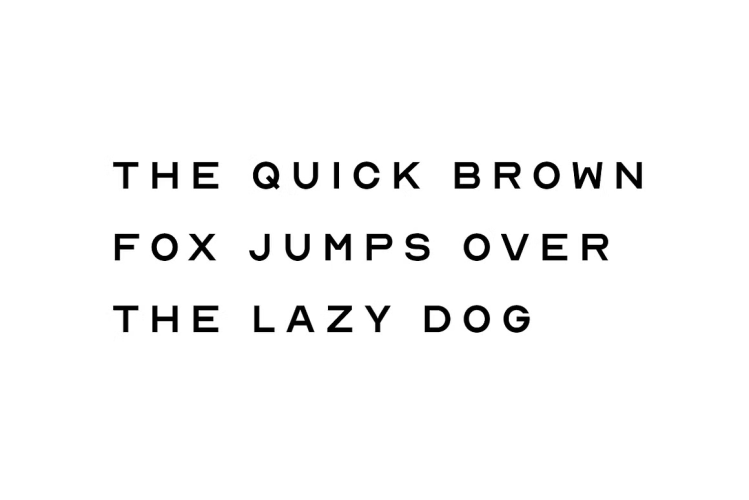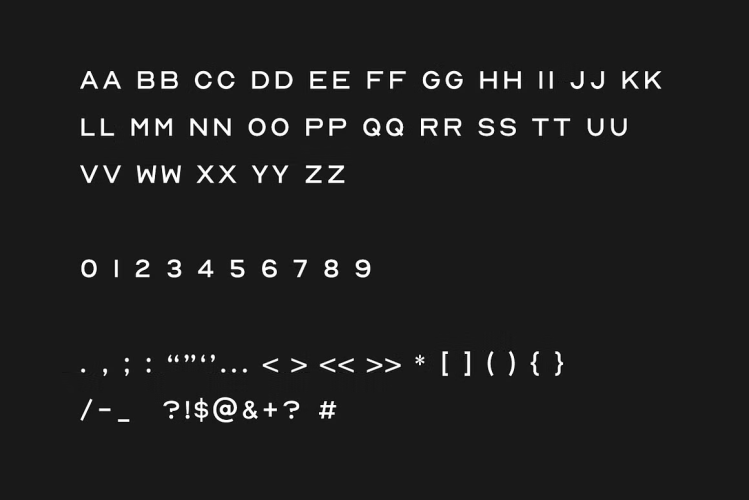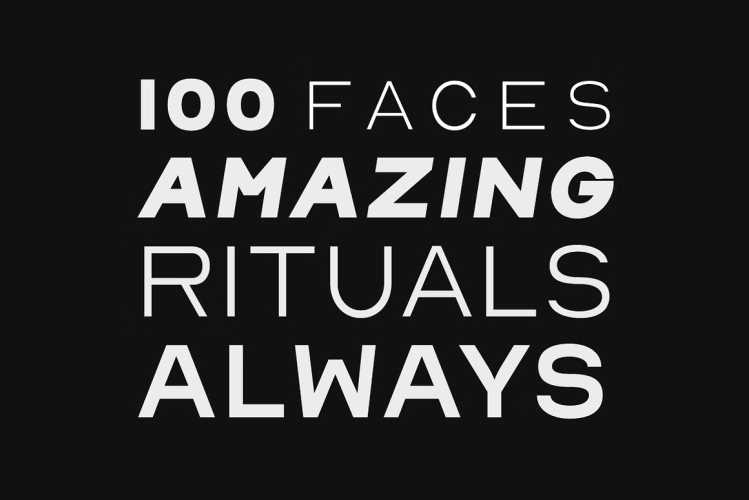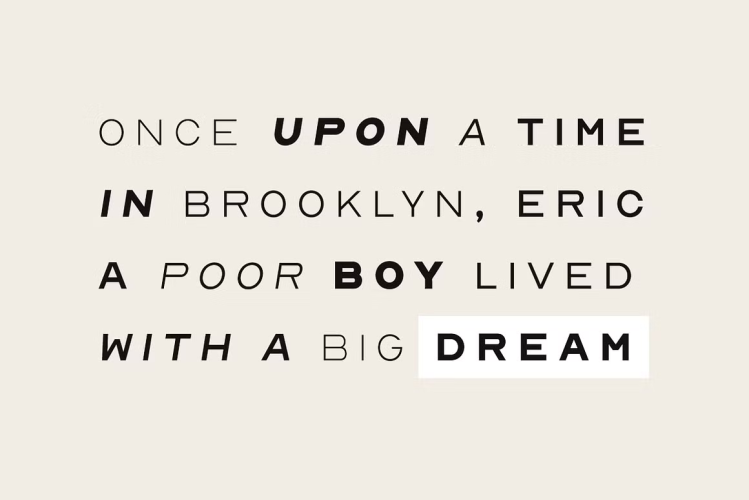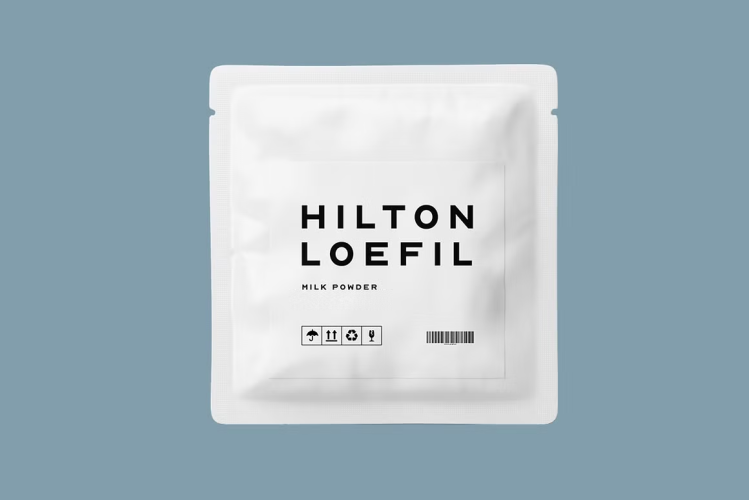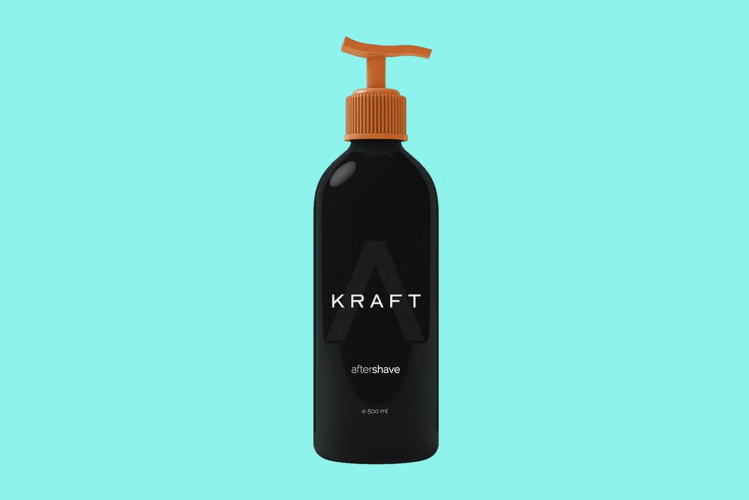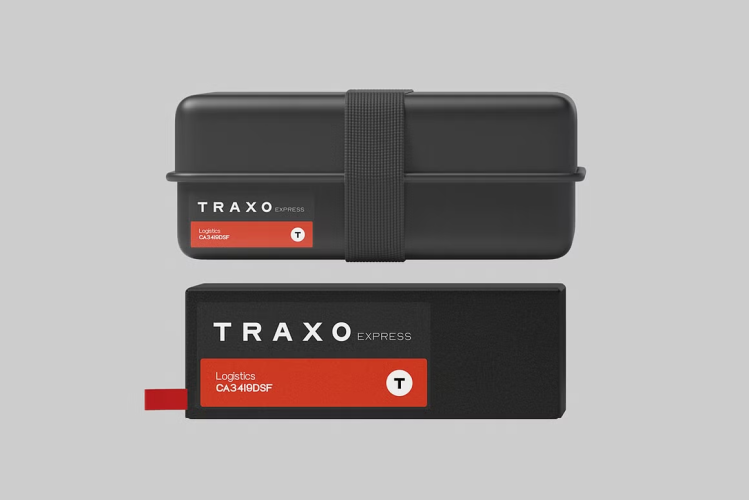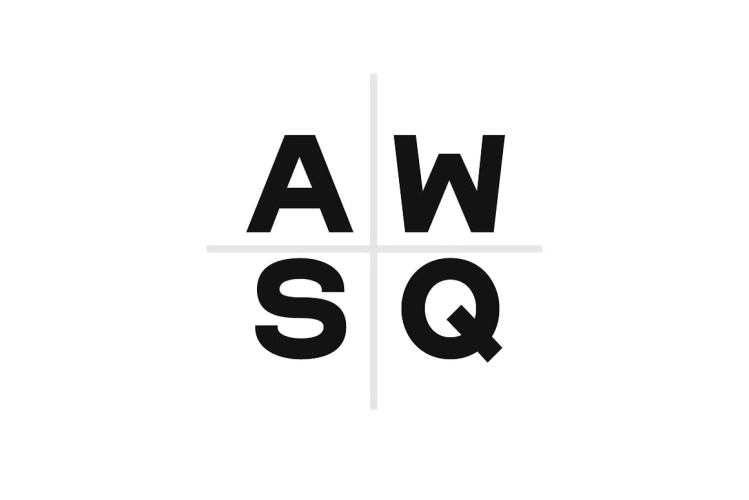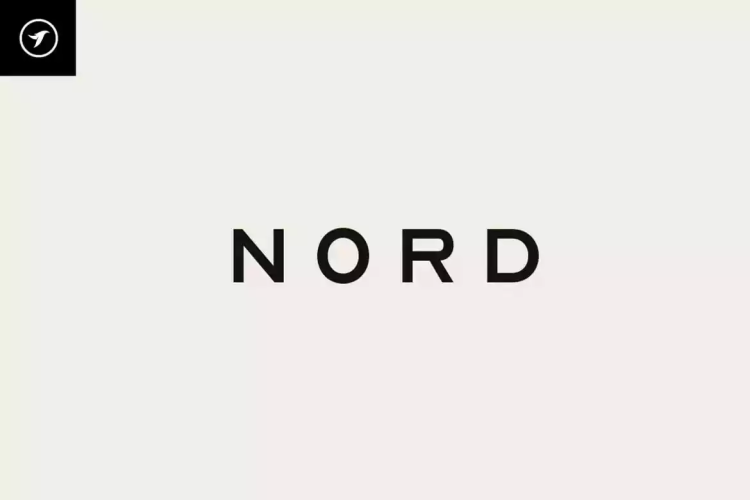
Nord Font
Nord is a minimal, modern Sans Serif and display All-Caps font family that stands out. It is best suited for creating logotypes, branding, headlines, corporate identitie…
Nord is a minimal, modern Sans Serif and display All-Caps font family that stands out. It is best suited for creating logotypes, branding, headlines, corporate identities, marketing materials for web and print, and any type of minimal design. Please see the included demographics to get an idea about the capability of this typeface when used for branding and marketing material design.
Nord font family comes with 14 fonts, including 7 upright weights (THIN / LIGHT / BOOK / REGULAR / MEDIUM / BOLD / BLACK) and Italic versions of all 7 weights. Each weight includes extended language support, including Western European & Central European sets. A total of 275 glyphs are included (updated as version v2.0).
NORD font family includes a collection of 14 fonts in total, with seven upright weights and Italic equivalents of all seven weights as follows:
Handcrafted and designed with powerful OpenType features in mind, each weight includes extended language support with Western European, Central European, and South Eastern European sets. A total of 275 glyphs are available.
Where Nord Font works best
Complete brand systems
With multiple weights, Nord Font can carry a whole identity — logo, headings, body copy and captions — consistently across print and web.
Websites & apps
Families let you set hierarchy with weight instead of switching typefaces, which keeps interfaces fast and coherent.
Print collateral
Brochures, catalogues and business cards benefit from a family that covers display and text sizes.
What is Nord Font good for?